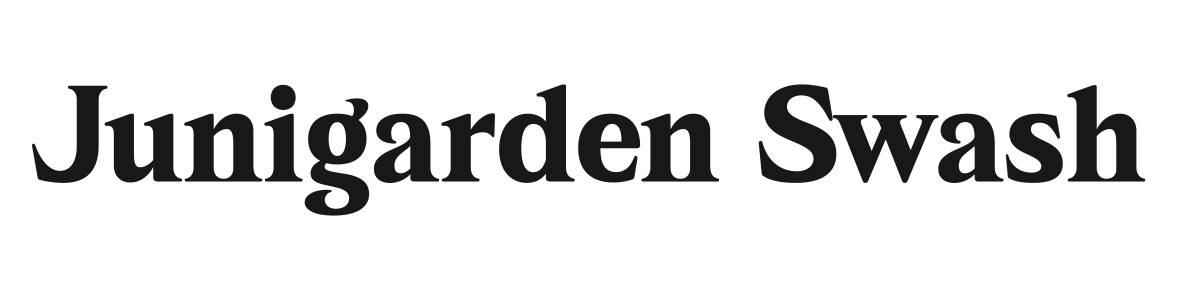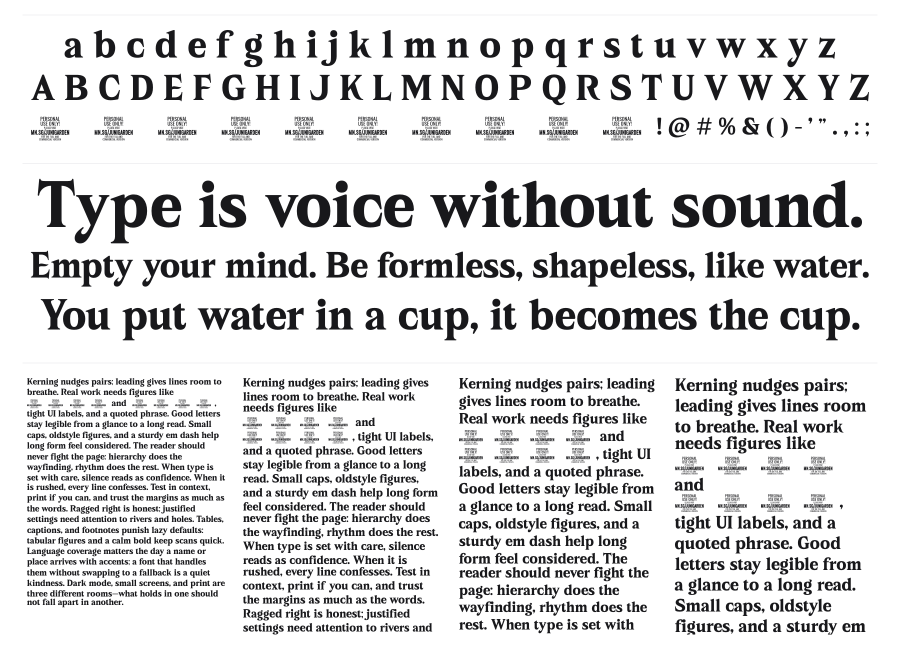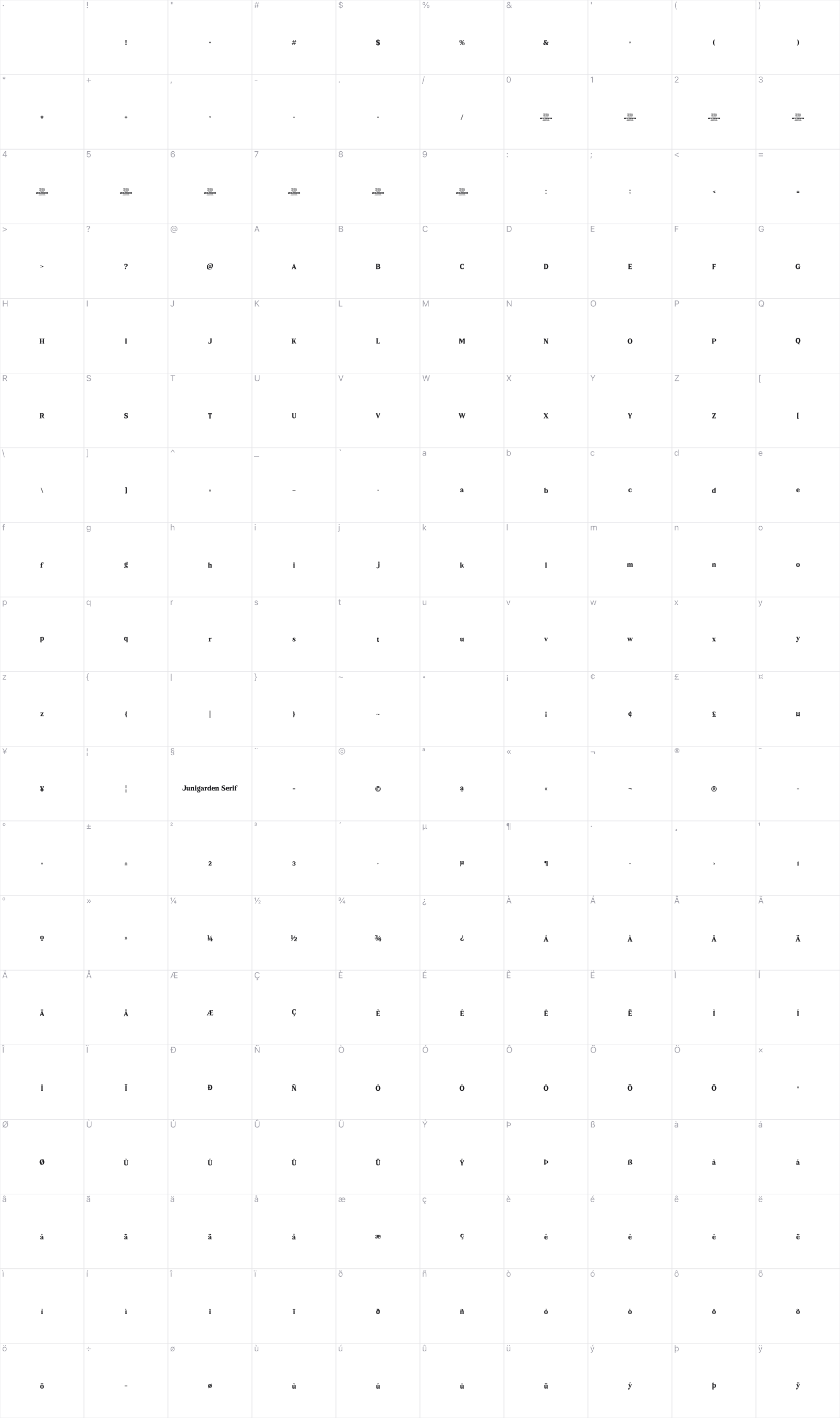
Junigarden Swash
Junigarden Swash is a bold, high-contrast serif with flowing swash alternates that mix vintage elegance with a lively, decorative spirit. The heavy weight and bracketed serifs give it real authority at headline sizes, while the OpenType-driven swashes introduce movement and charm that keep it from feeling stiff. It lives in the space between a classic book serif and a full ornamental display face.